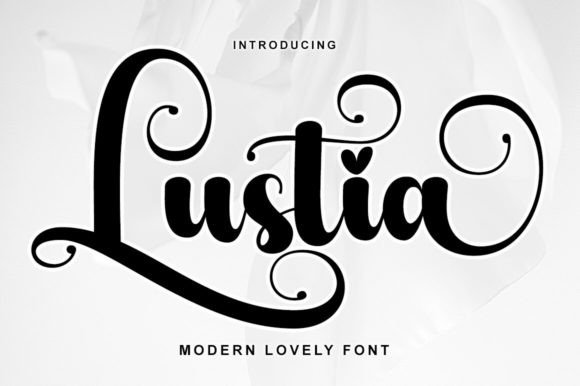
Introducing Lustia Font, the ultimate choice for all your film script needs. Crafted with meticulous attention to detail by the talented madjack.font, this script font is guaranteed to elevate your project and captivate your audience.
With its beautiful handwriting style, Lustia Script exudes elegance and sophistication. Its stunning glyphs add a unique touch to your designs, making them stand out from the crowd. Whether you're working on branding projects, homeware design, or product packaging, Lustia Font is your go-to solution.
But that's not all! This versatile font is a game-changer when it comes to creating business cards, invitation cards, and more. It effortlessly adds a touch of class and refinement to any project. Imagine the impact it will have on your audience when used as a stylish text overlay on a captivating background image.
One of the standout features of Lustia Font is its PUA encoding. This means you can easily access a wide array of amazing glyphs and ligatures. Let your creativity flow with ease and unlock endless design possibilities.
But don't just take our word for it. Experience the magic of Lustia Font for yourself. Watch as it transforms your projects into visual masterpieces that leave a lasting impression. Feel the emotions it evokes with every stroke, creating a connection that resonates with your audience.
Discover why designers all over the world are falling in love with Lustia Font. Its captivating charm and versatility make it a must-have for anyone looking to make a statement. Don't settle for ordinary fonts when you can have extraordinary.
Unlock the power of Lustia Font today and elevate your designs to new heights. Let your creativity soar and watch as your projects become works of art. Embrace the elegance, embrace the sophistication, and let Lustia Font be your secret weapon in the world of design.